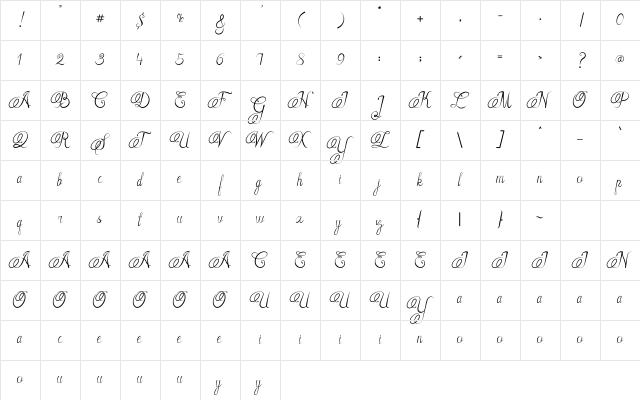
Arully Regular
Foundry: FebrylArully
Designer: FebrylArully
Arully is a composed and adaptable typeface that performs quietly and consistently across a wide range of design contexts.